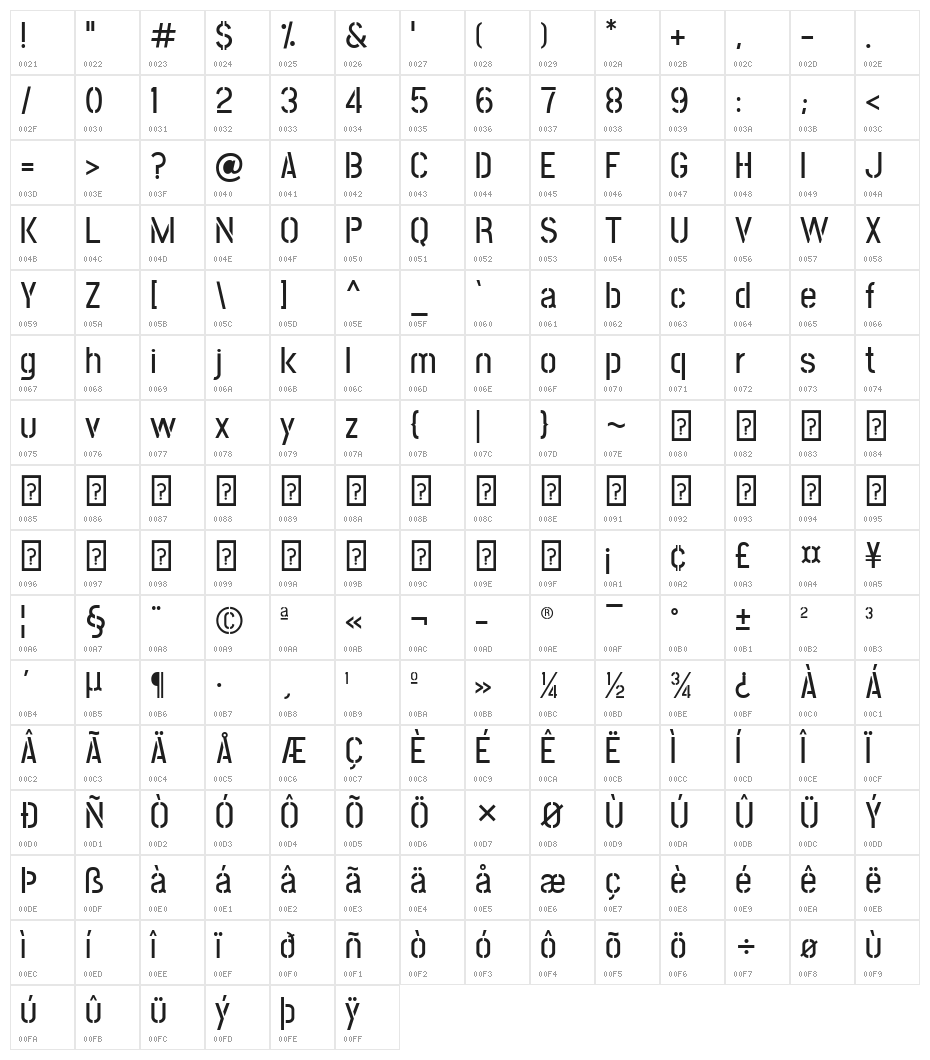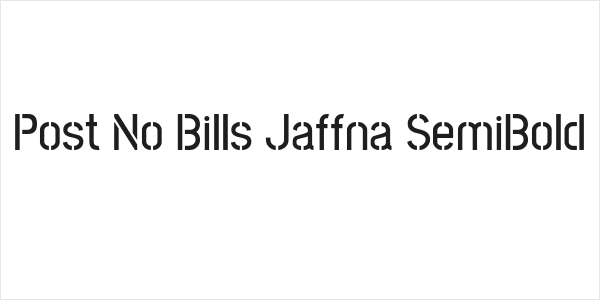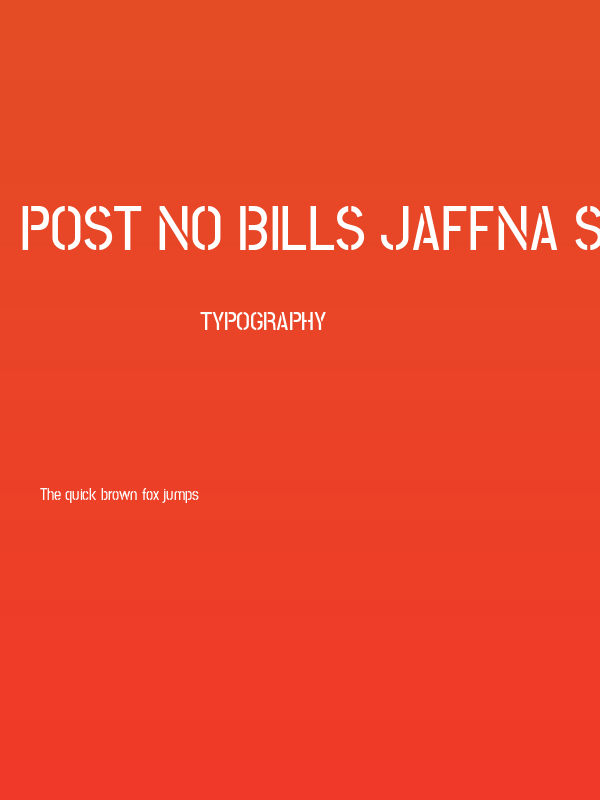
Post No Bills Jaffna SemiBold Font
Post No Bills Jaffna SemiBold Description
This font features a modern, geometric design with a distinct stencil-like appearance. The characters are constructed with clean, straight lines and sharp angles, giving it a contemporary and industrial feel. The uppercase and lowercase letters maintain a consistent style, with unique cutouts that add a dynamic and edgy look. The numerals and special characters follow the same design principles, ensuring uniformity across all glyphs. This font's semi-bold weight provides a strong presence, making it suitable for impactful headlines and attention-grabbing designs.